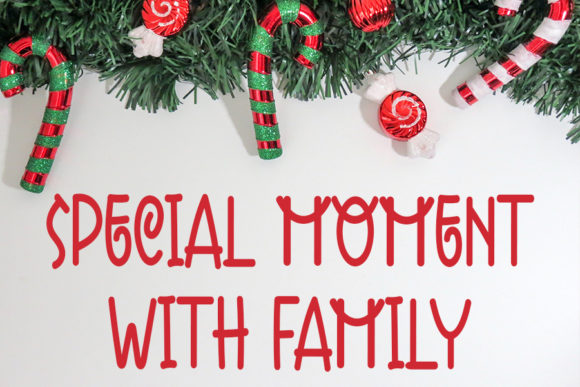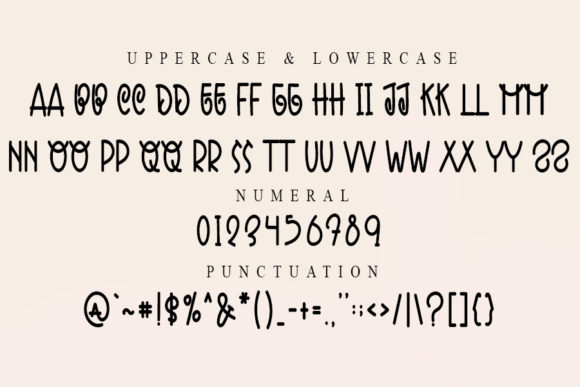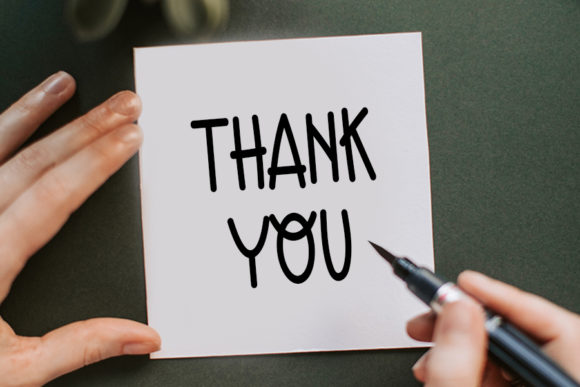
Introduction to Lovely Melody Font Font
Fonts play a crucial role in design, and the Lovely Melody Font font is a typeface that brings both character and versatility to any project. Whether you’re working on a branding project, a website, or a print design, the Lovely Melody Font font offers a unique style that can elevate your work.
Lovely Melody is a cute and whimsical display font.
Whether you are using it for cartoon-related designs, childrenβs games, quotes, titles, brand names, book covers, posters, or just any creation that requires a touch of beauty, this font is a great choice .
Key Features of Lovely Melody Font Font
Why Choose Lovely Melody Font Font?
The Lovely Melody Font font is more than just a typeface β it’s a design tool that helps you communicate your message with style and clarity. Its unique character set and versatile design make it suitable for a wide range of applications, from elegant invitations to bold headlines.
With its carefully crafted letterforms and balanced proportions, the Lovely Melody Font font ensures readability and visual appeal across all mediums.
What makes Lovely Melody Font font special?
The Lovely Melody Font font stands out with its unique design, exceptional readability, and versatility across various design applications.